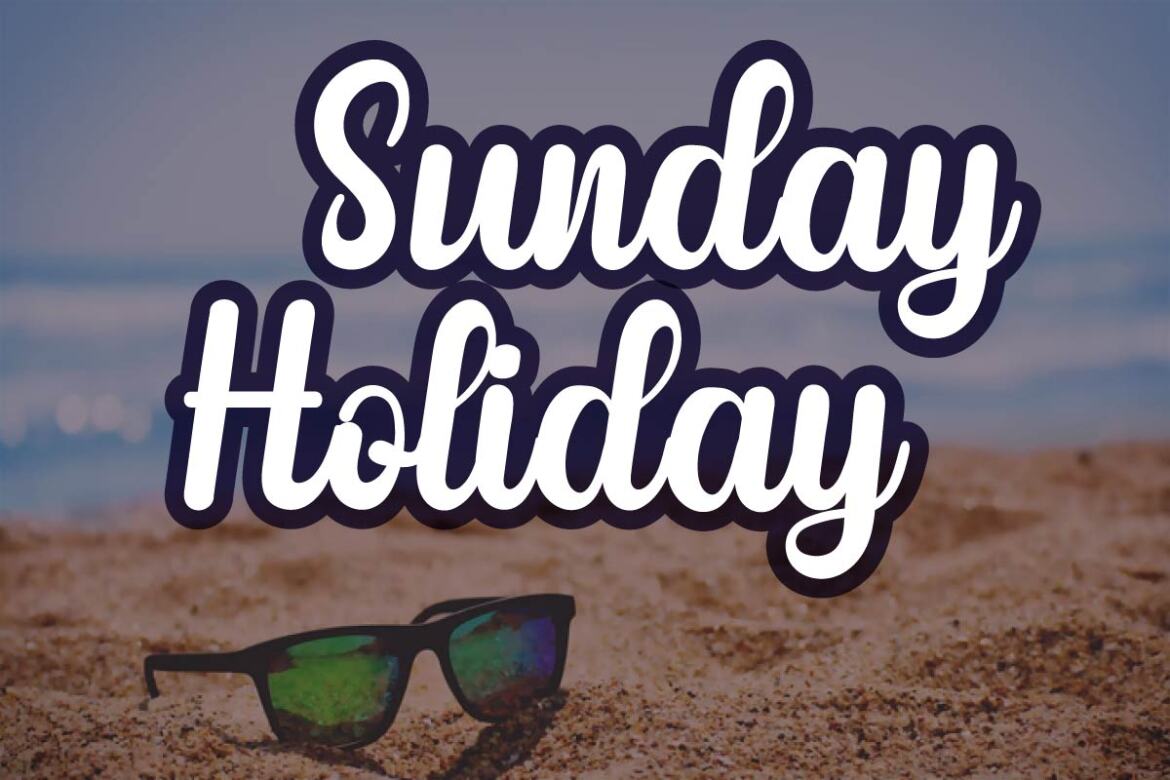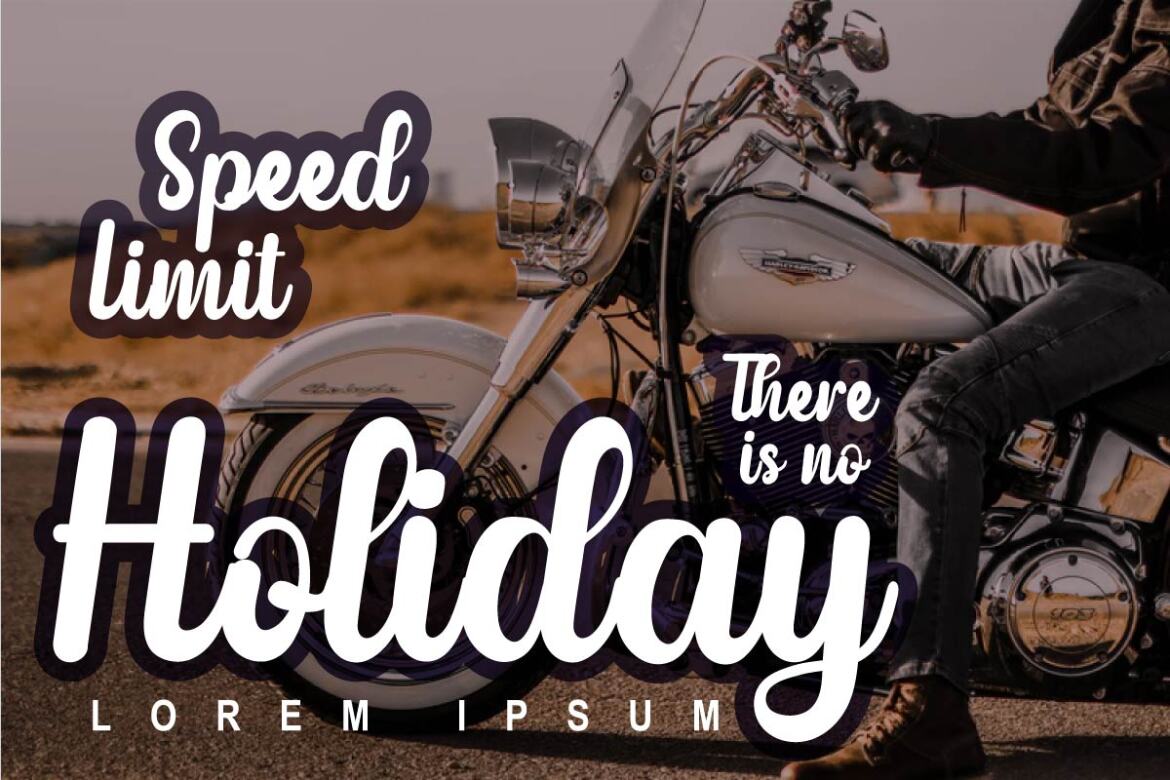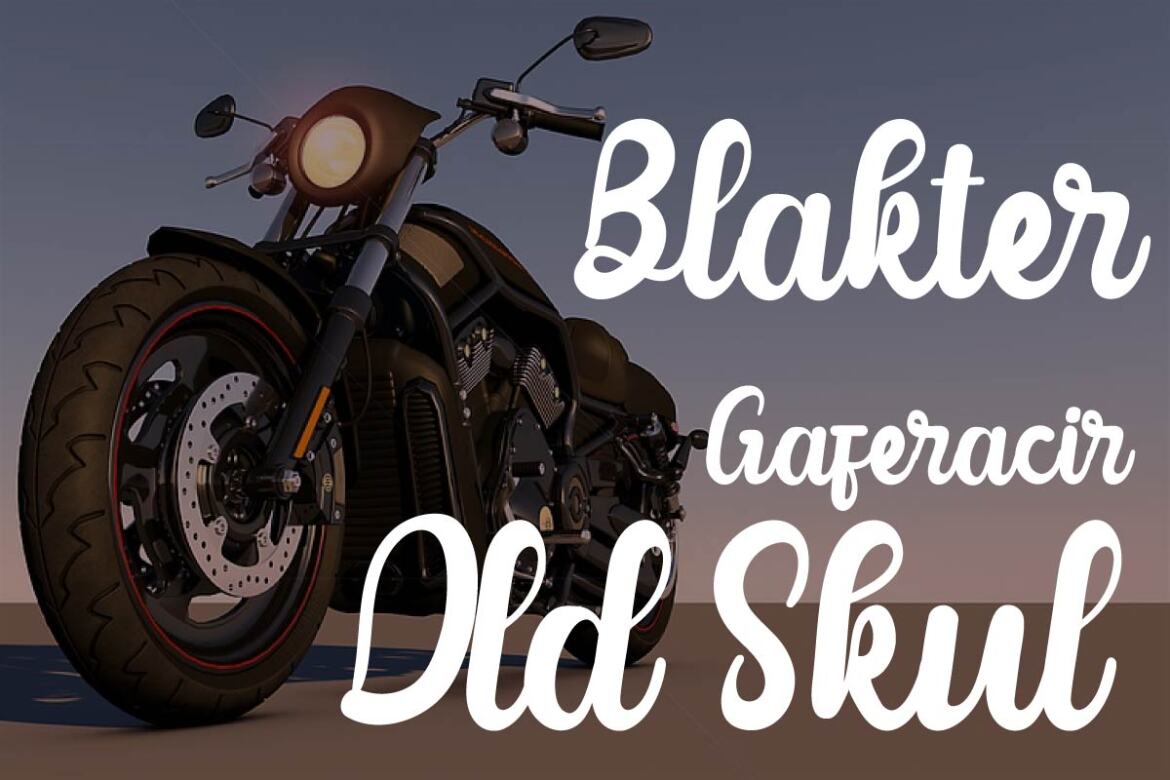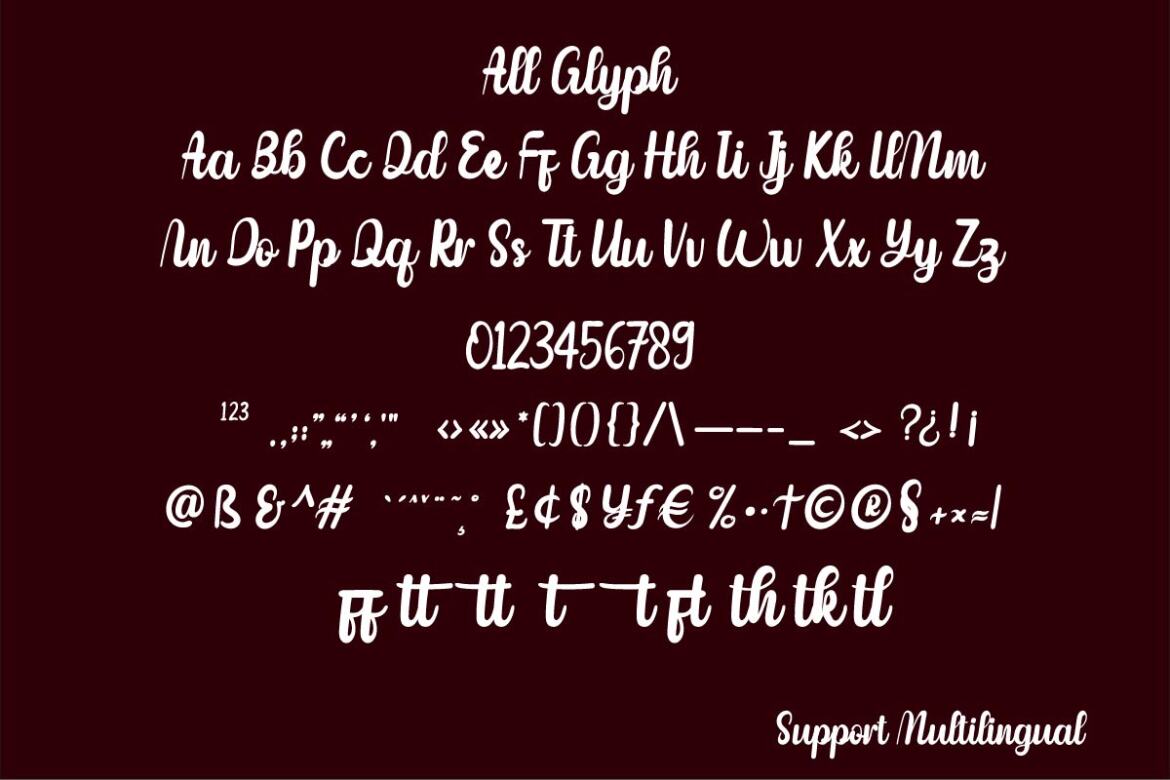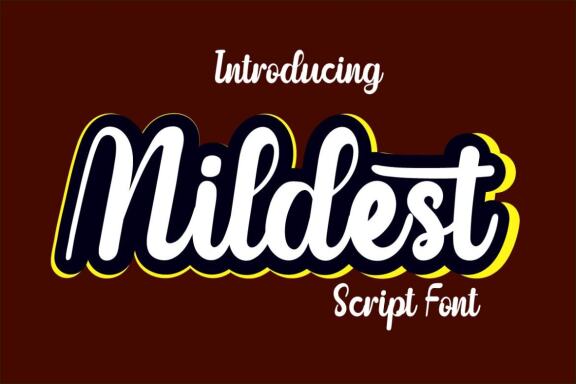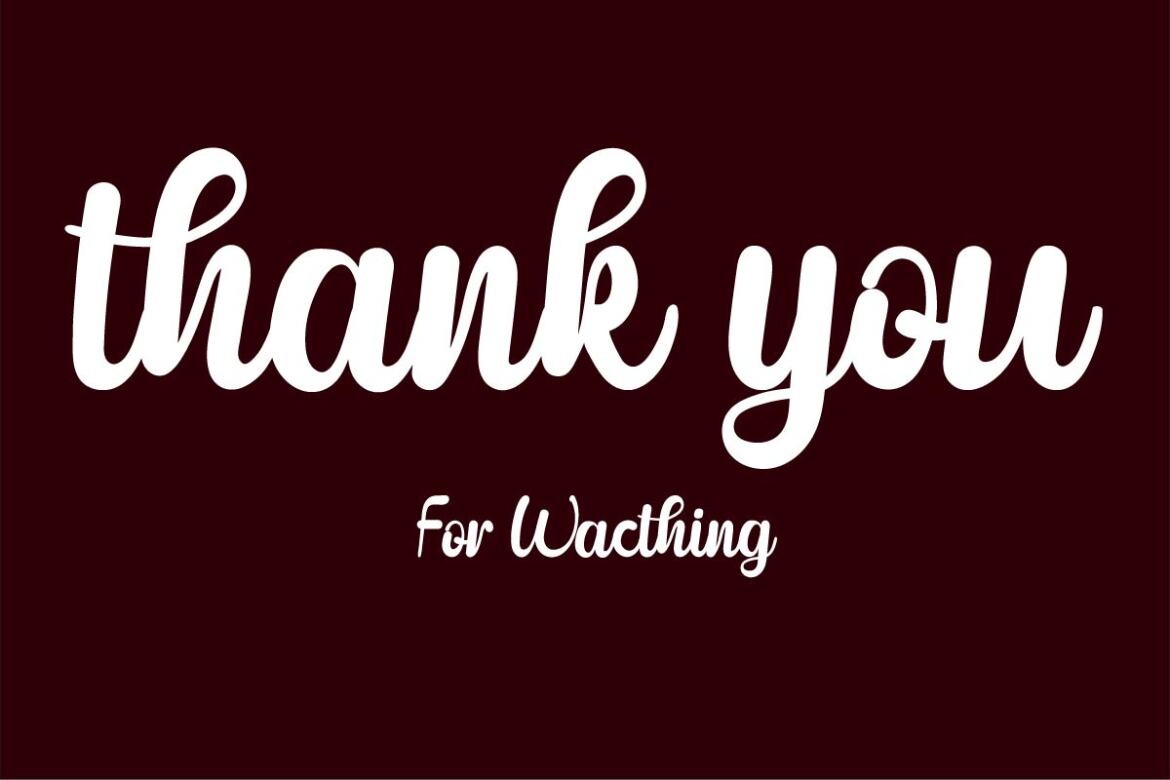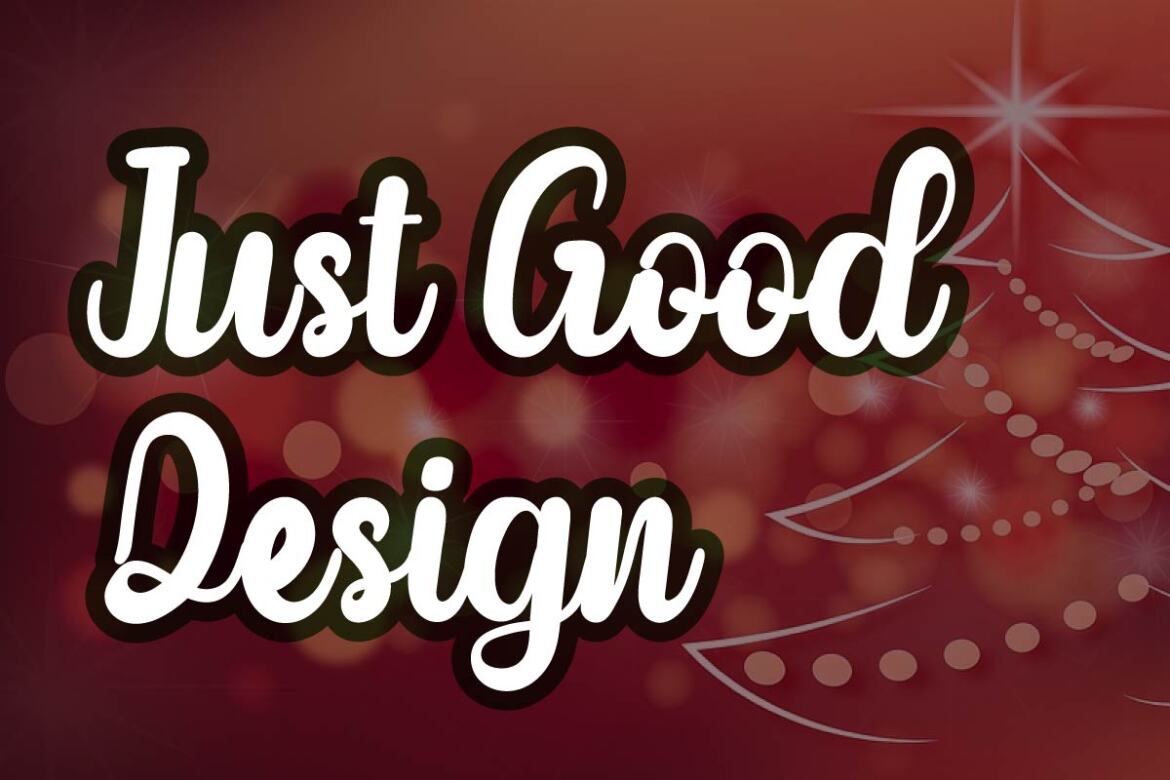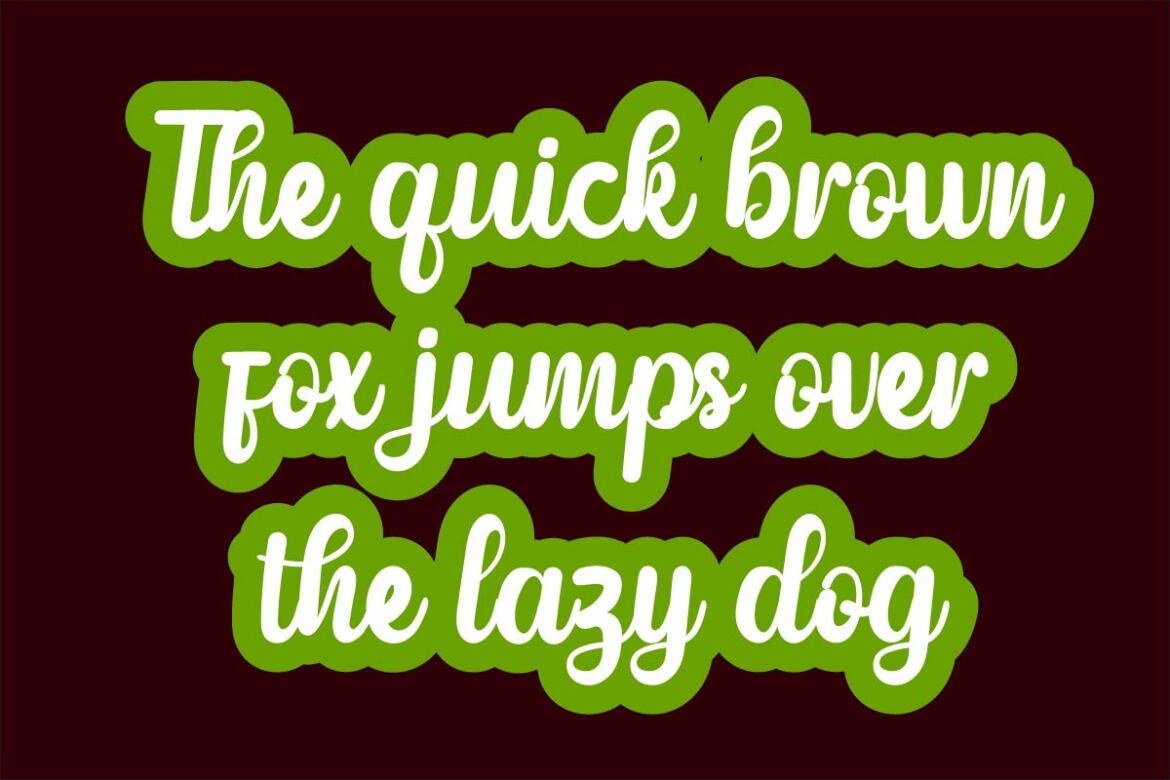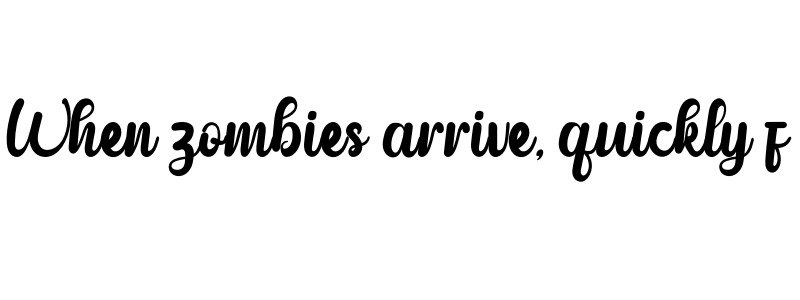
Mildest
It is our pleasure to introduce our newest product "Mildest Font". This gorgeous font will stand out when incorporated into your designs. This font is designed with a soft and attractive handwritten touch, of course, according to your needs. Mildest Font is perfect for Branding, food, wedding invitations, Product names, quotes, social media page covers, food, drinks and much more.
• alternate
• ligature